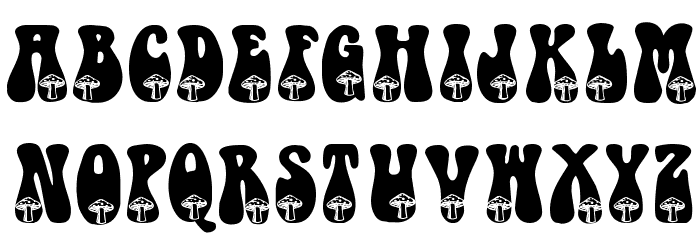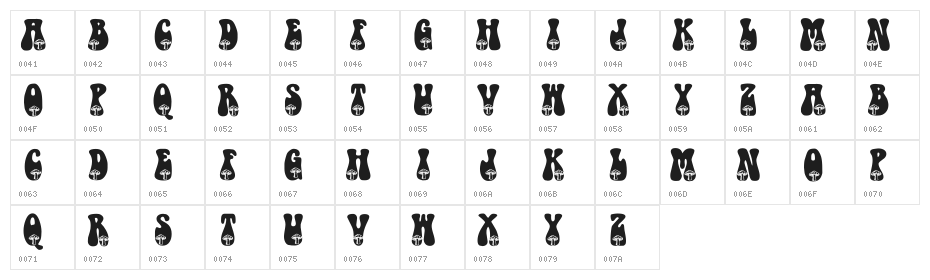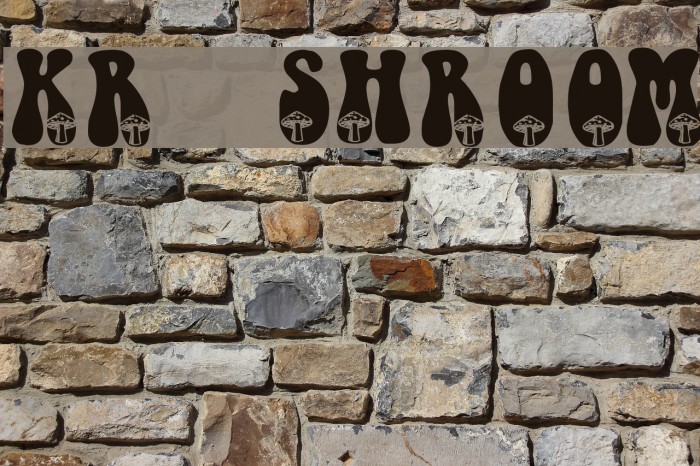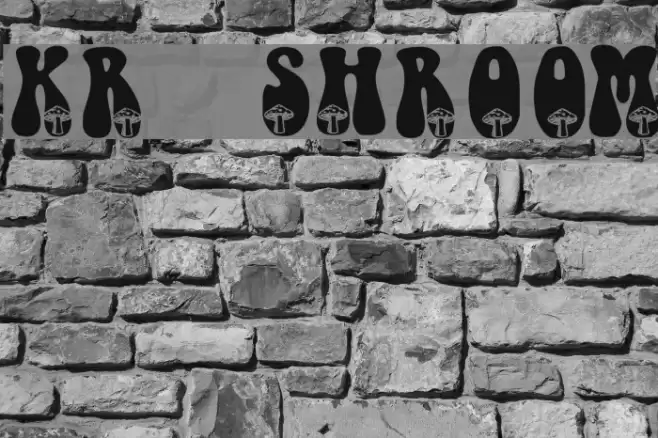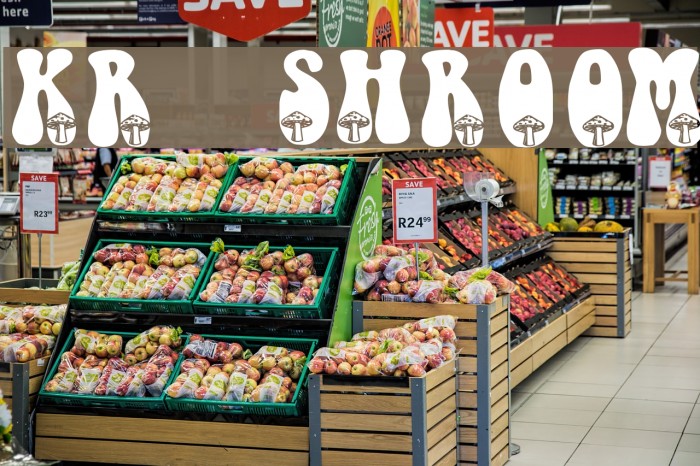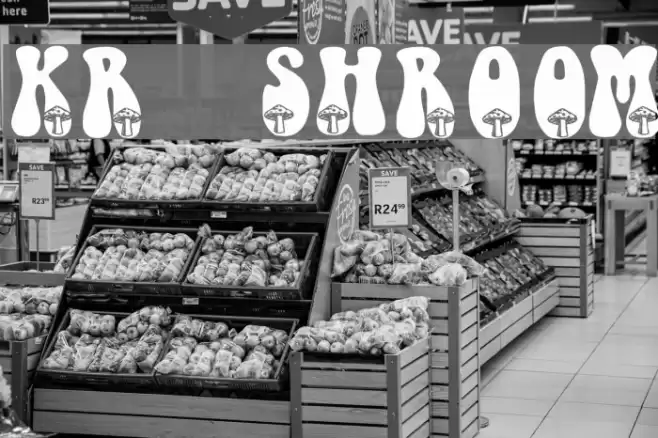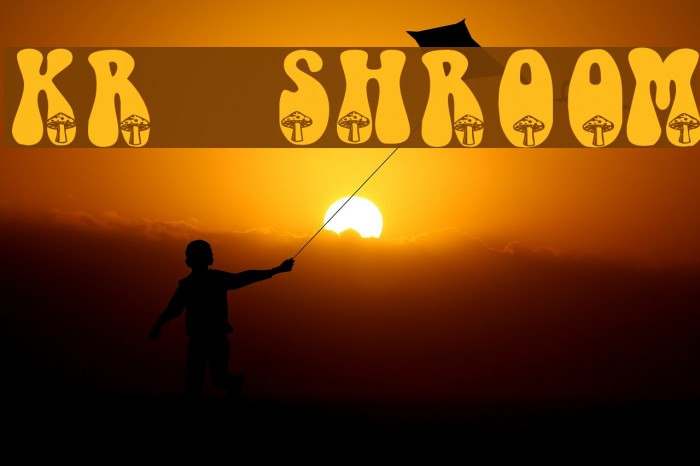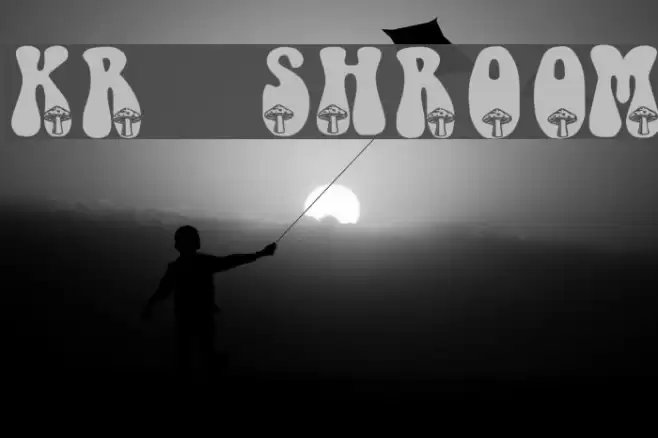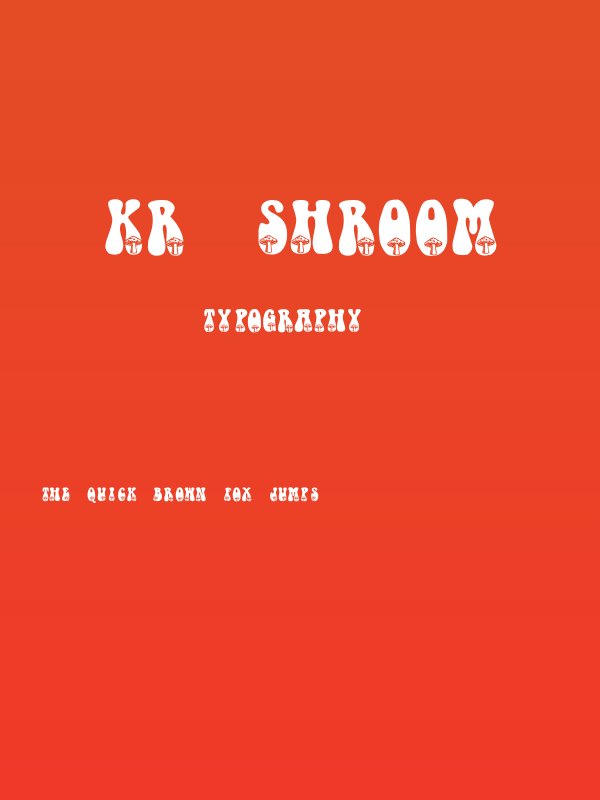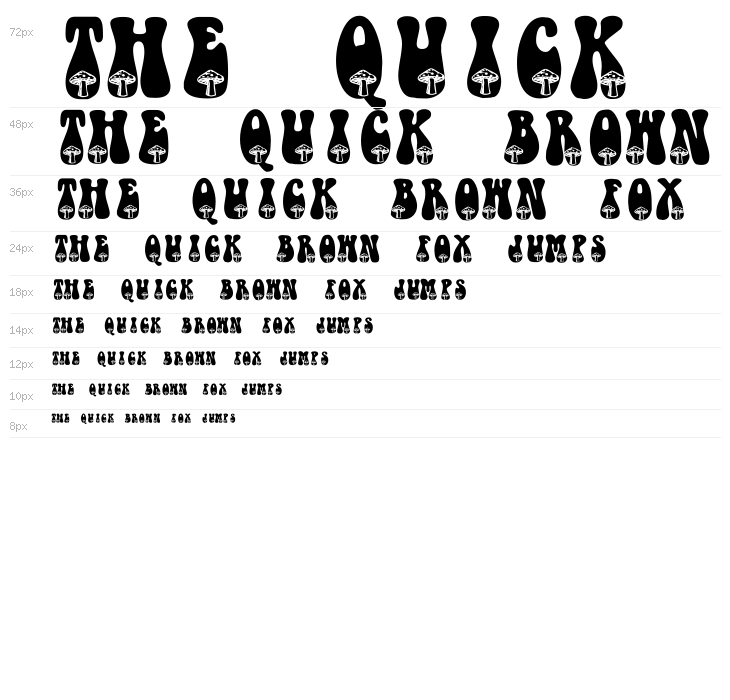
KR Shroom Font
KR Shroom Description
This font features a playful and whimsical design, with each character incorporating a mushroom motif. The letters are bold and rounded, giving them a bubbly appearance. The unique integration of mushroom illustrations within the characters adds a decorative and thematic element, making it ideal for projects that require a fun and quirky aesthetic. The font's style is reminiscent of retro and psychedelic themes, with a strong visual impact due to its boldness and distinctive design elements.